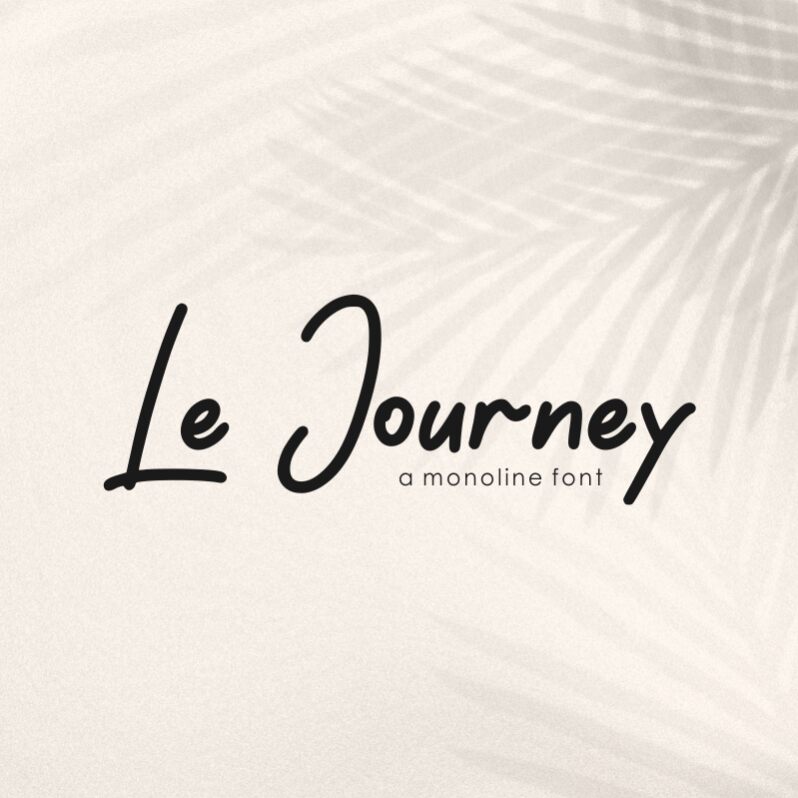
Le Journey
Le Journey is a mesmerizing handwritten font by Qwrtype Foundry. With its light weight, this font exudes elegance and sophistication in every stroke. Perfect for travel blogs, wedding invitations, and personal branding projects, Le Journey adds a touch of charm and whimsy to any design. Its flowing curves and graceful lines make it an ideal choice for creating captivating logos or adding a personal touch to your digital content. Let Le Journey guide you on a creative adventure and bring your projects to life with its unique handwritten style.